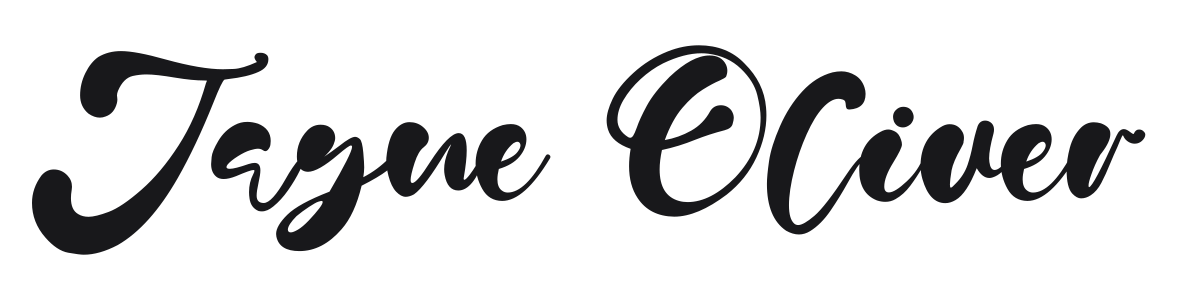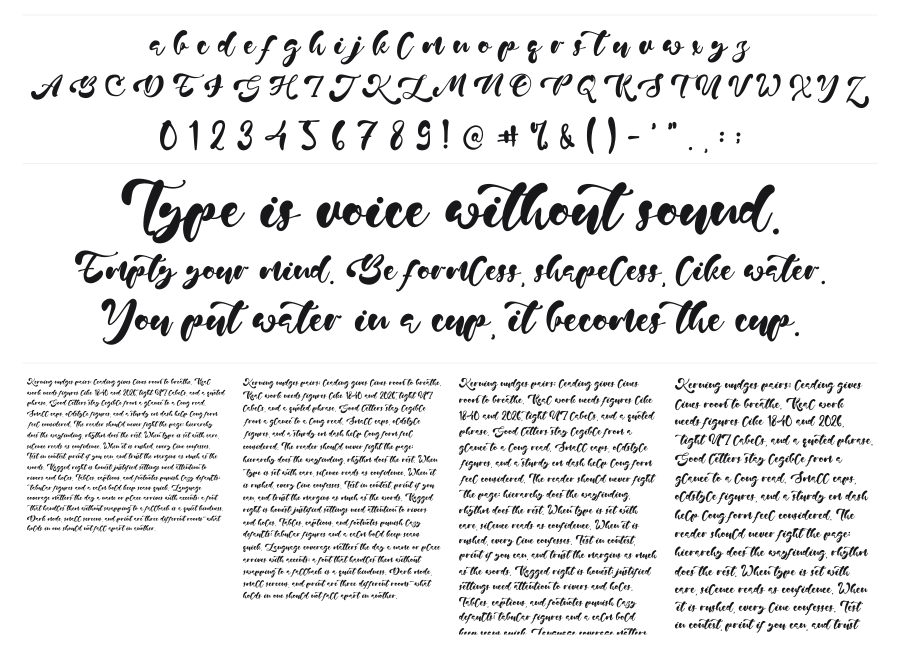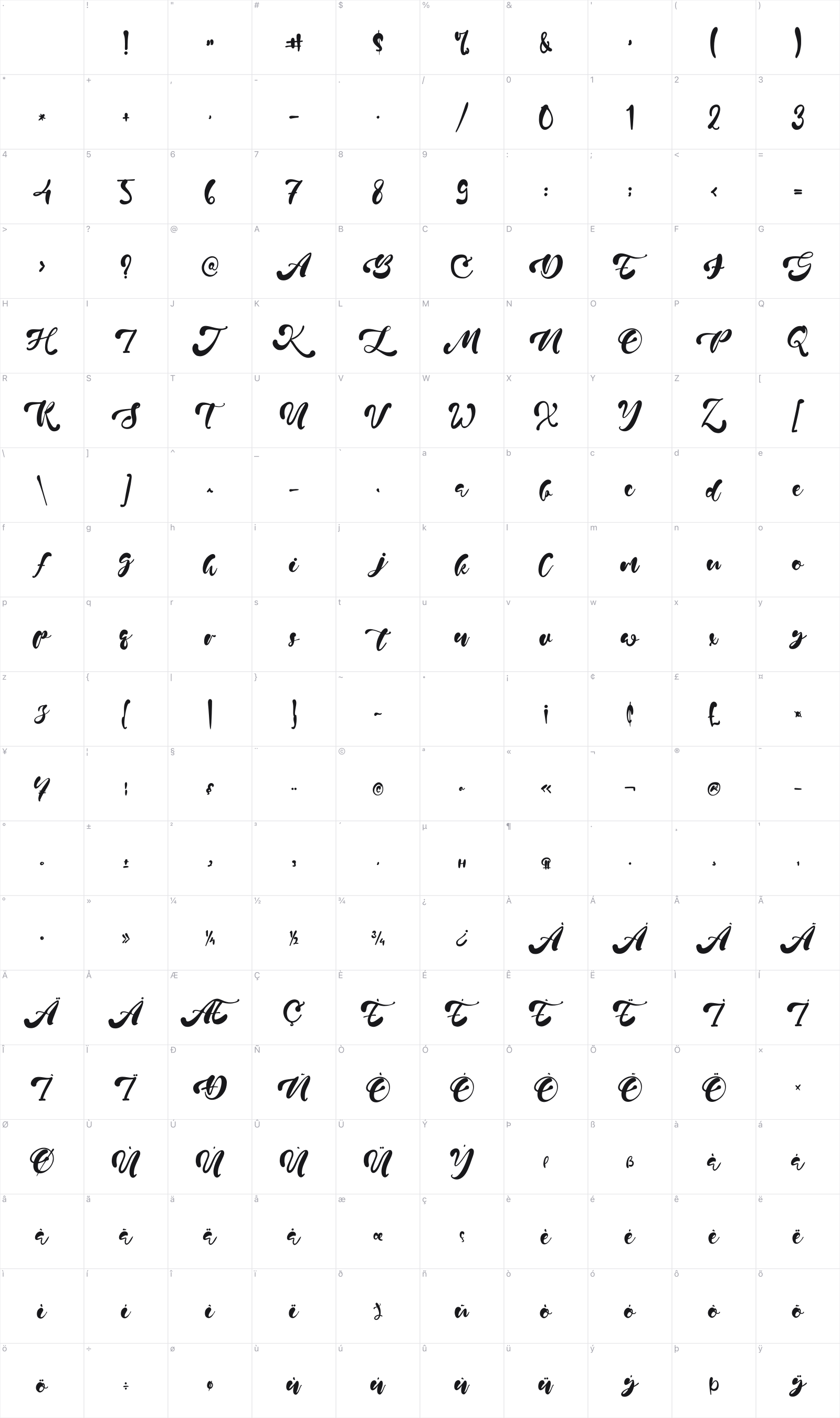
Jayne Oliver
Jayne Oliver is a bold brush script with the spontaneous, ink-heavy energy of hand-lettering. Lively baseline bounce and interlocking loops give words a natural, flowing rhythm at display sizes. It carries the warmth of something written by hand without losing legibility.